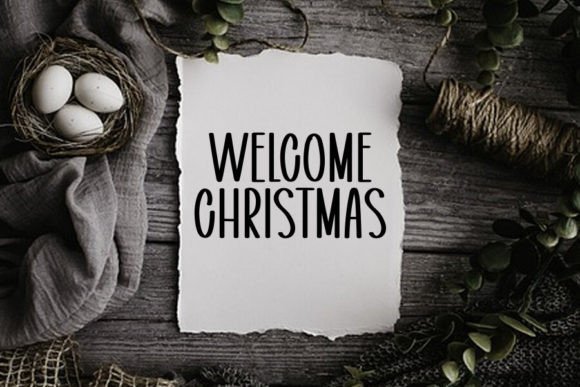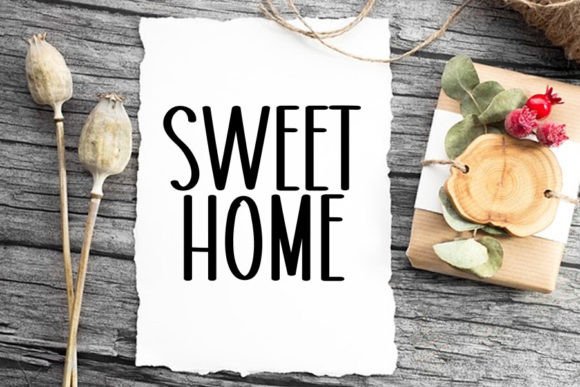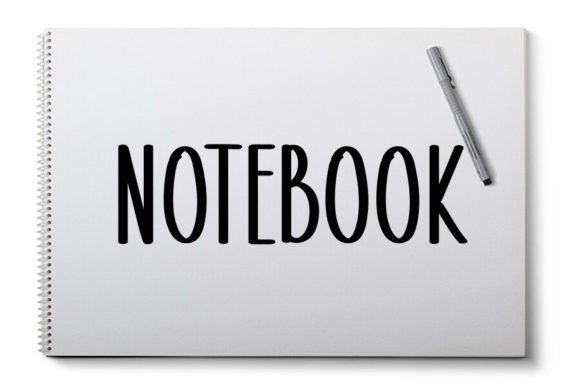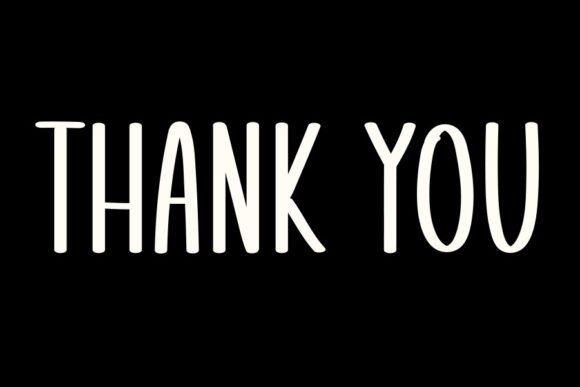
The Magic of Christmas Font: A Designer’s Delight
It’s the most wonderful time of the year – and I’m not just talking about the holiday season! As a designer, I’ve had my fair share of late nights, sipping coffee, and scrolling through font libraries, searching for that perfect typeface to bring my project to life. One fateful evening, I stumbled upon Christmas Font, and it quickly became my new obsession. If you’re a fellow designer, crafter, or creative hobbyist, you’re in for a treat!
A Personal Review: What I Love About Christmas Font
So, what makes Christmas Font so special? Here are a few things that caught my attention:
- ✨ Sweet and Beautiful Handwritten Style: Christmas Font boasts a charming, handwritten aesthetic that’s perfect for adding a touch of warmth and coziness to your designs.
- ✅ Dancing Characters: The characters in this font seem to dance along the baseline, creating a sense of movement and playfulness that’s hard to resist.
- 🎉 Versatility: Whether you’re working on a holiday-themed project or simply want to add some whimsy to your design, Christmas Font is an excellent choice.
While Christmas Font is undoubtedly a stunning typeface, there are a few minor quirks to be aware of:
- 🤔 Limited Use in Small Sizes: Due to its intricate design, Christmas Font may not be the best choice for very small text sizes. It’s best used in larger sizes where its details can shine.
- ⚠️ Some Characters May Require Manual Adjustment: Depending on the context, you might need to manually adjust the spacing or kerning of certain characters to achieve optimal results.
The Story Behind Christmas Font
While the origins of Christmas Font remain a mystery, it’s clear that the designer was inspired by the magic of the holiday season. Imagine a snowy evening, surrounded by twinkling lights, and the sound of carolers filling the air. That’s the feeling that Christmas Font embodies – a sense of wonder and enchantment that’s perfect for capturing the spirit of the season.
| Font Name | Christmas Font |
| Author | ArtLine Design |
| What is the best use for Christmas Font? | Christmas Font is ideal for holiday-themed designs, such as greeting cards, invitations, and festive posters. |
| Is Christmas Font suitable for body text? | While Christmas Font is beautiful, it’s best used as a display font or for short paragraphs. It’s not recommended for large blocks of body text. |